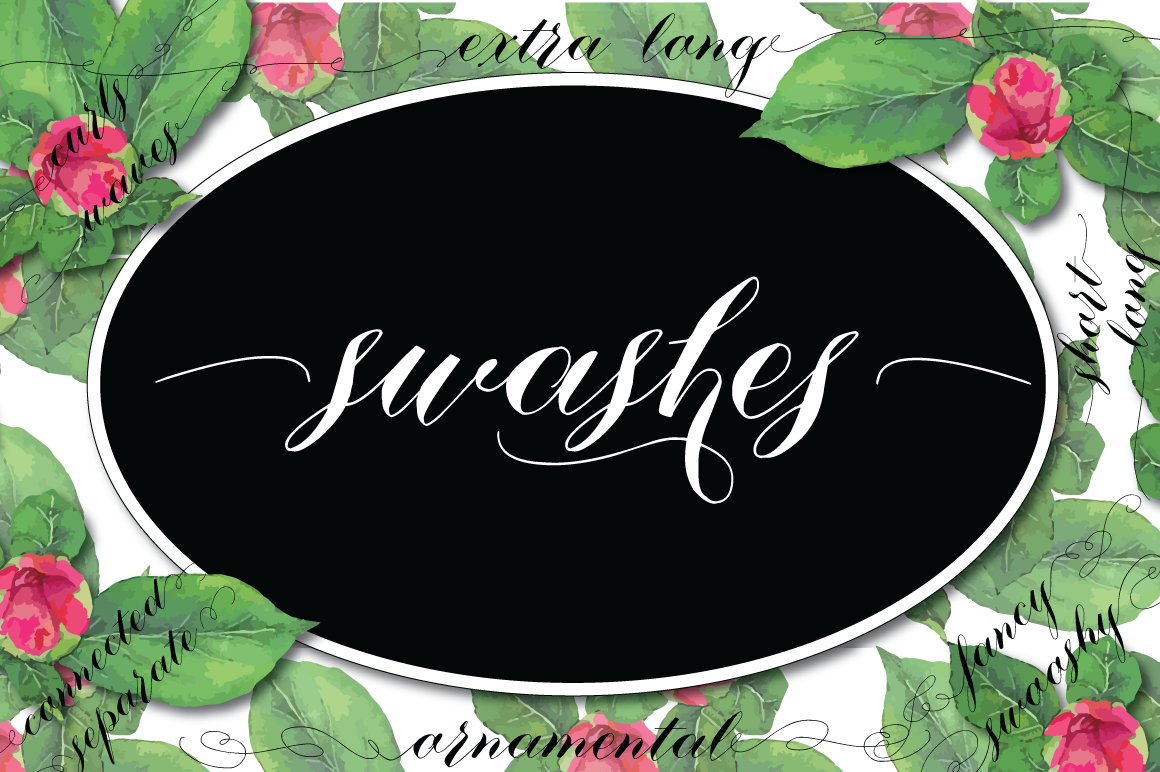
Script Font - Nistiver *otf
Nistiver font is playful, is feminine, is packed with fancy swashy letters and swashes that can be put on the both ends of words - and above all swash comes in many shapes and forms. If that is not enough there are also available swashes to be placed at the top/bottom of the pages - and there are over 1400 glyphs in total to cater for that. Doesn't matter if your language is other than English. You can still use this font - as Nistiver can be used for foreign writing (see list of languages at the bottom of this page).
Suits texts where visual statement is required (ie. name in invitation, header etc.), and suits general writing as well as basic letters are legible and elegant.
OT Features in Nistiver font: • All Alternates • Contextual Alternates • Fractions • Kerning • Standard Ligatures • Swash